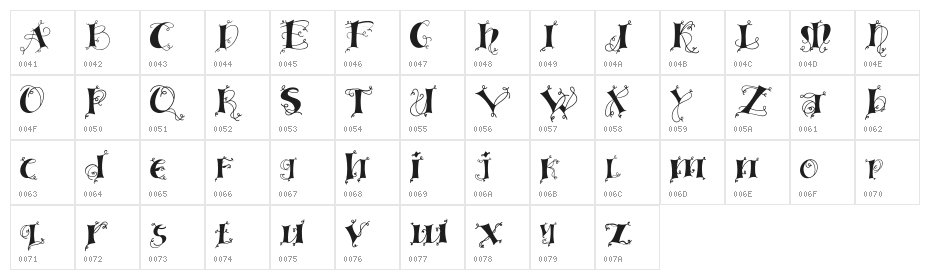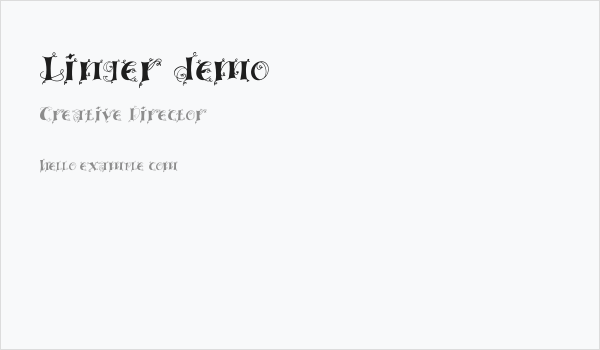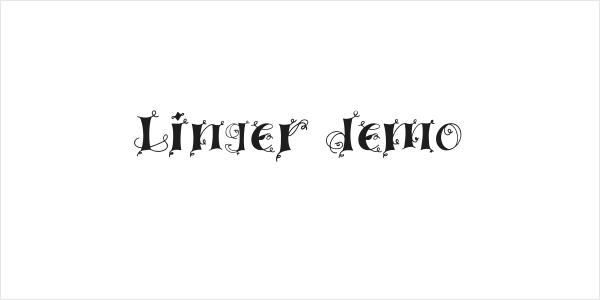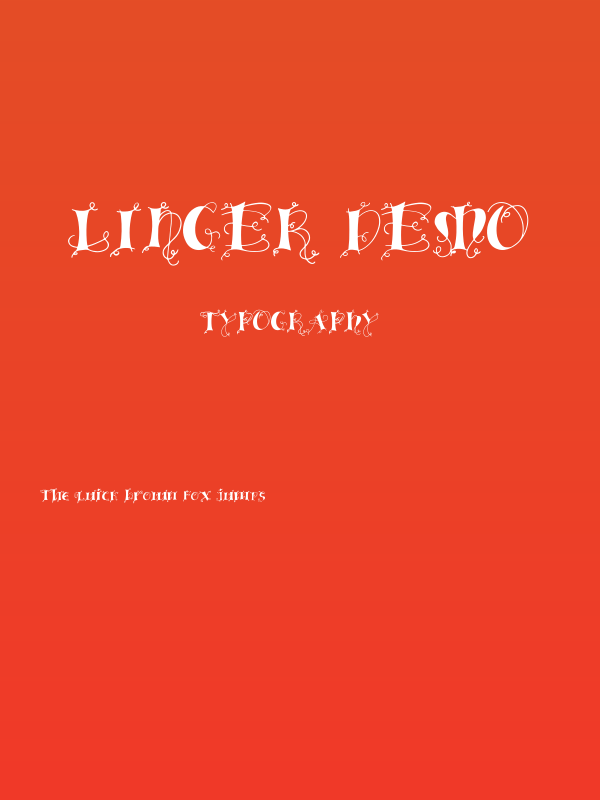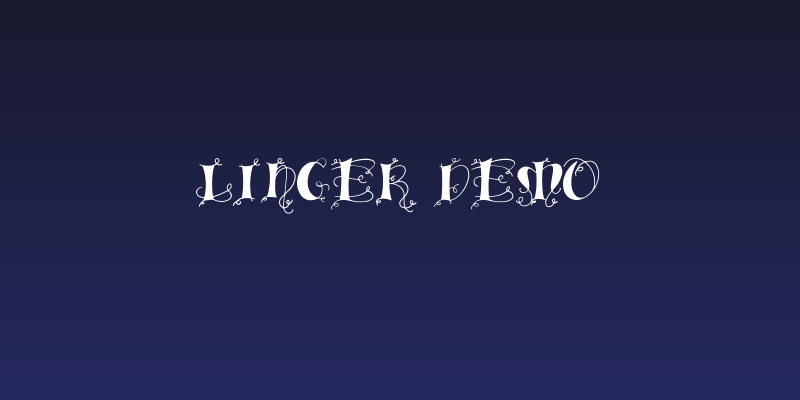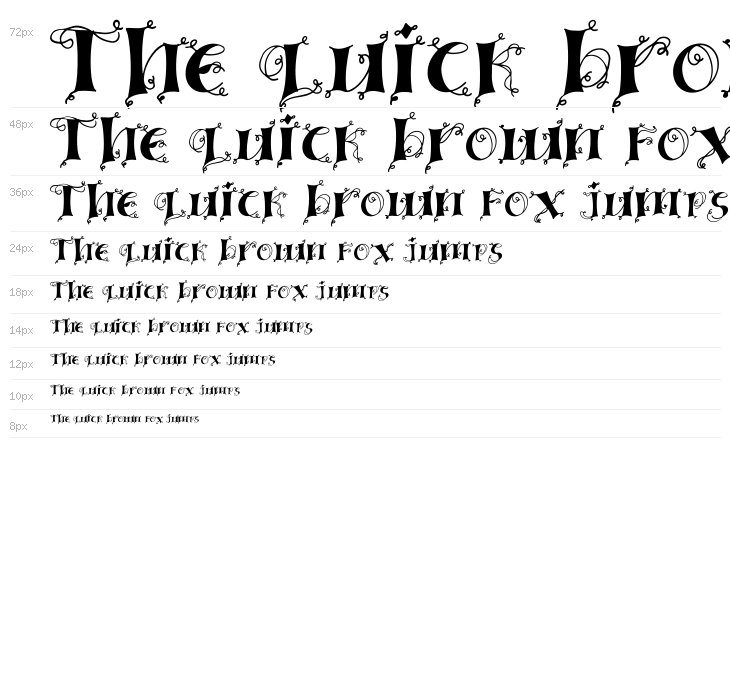
Linger demo Font
Linger demo Description
This font is an intricate and decorative typeface characterized by its elaborate swirls and embellishments. Each letter is adorned with ornate curls and loops, giving it a whimsical and artistic appearance. The uppercase and lowercase letters maintain a consistent style, with a playful yet elegant flair. The font's unique design elements make it stand out, ideal for projects that require a touch of creativity and sophistication. The characters are well-defined, with a balance between the decorative elements and readability.
| Use Case | Logos, Invitations, Artistic Projects |
| Proposed Projects | Perfect for wedding invitations, greeting cards, artistic posters, and branding projects that require a creative and elegant touch. |